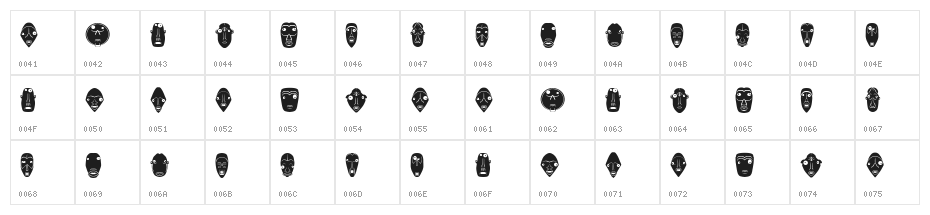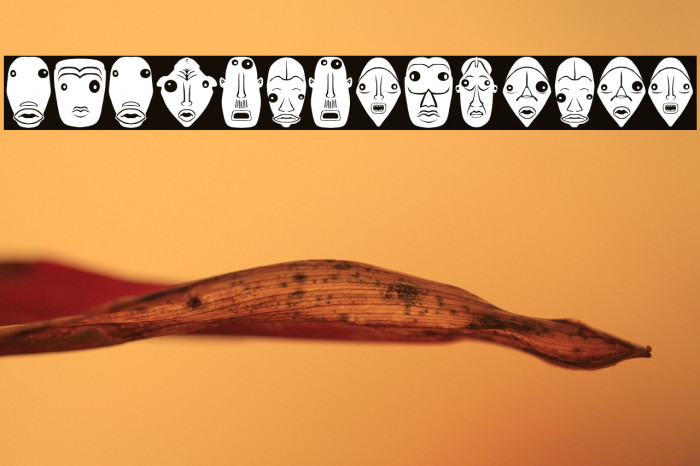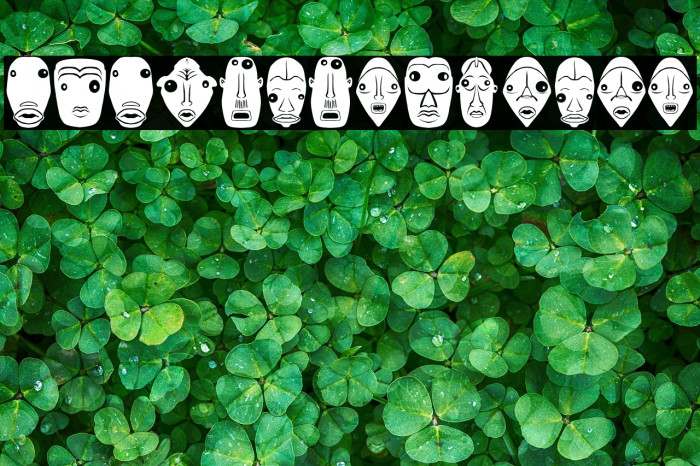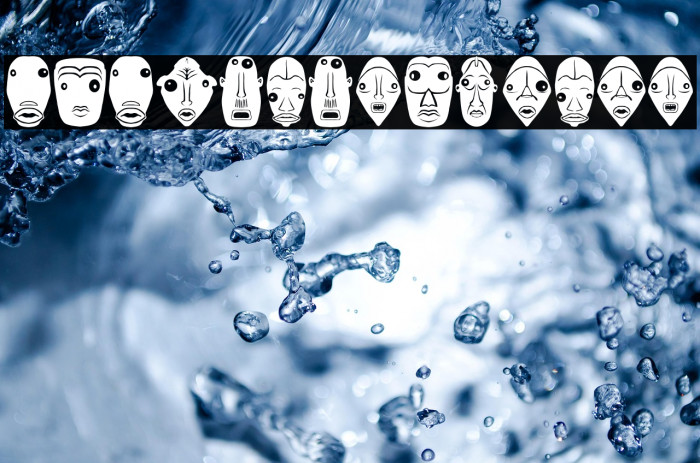
Isitolo Regular Font
Isitolo Regular Description
A highly decorative and playful font where each character is represented by a unique stylized mask or face, featuring bold lines, geometric shapes, and expressive facial features. The glyphs are filled with solid black and accented with white details, creating strong visual contrast.
| Overall Style | Decorative, Playful, Artistic, Ethnic-inspired |
| Use Case | Logos, Posters, Headlines, Artistic projects |
| Proposed Projects | ChildrenΓ’β¬β’s books, posters, album covers, cultural event branding, art installations. |